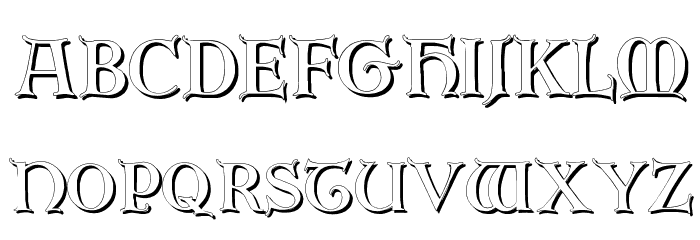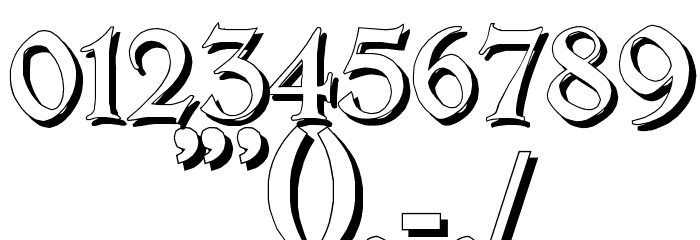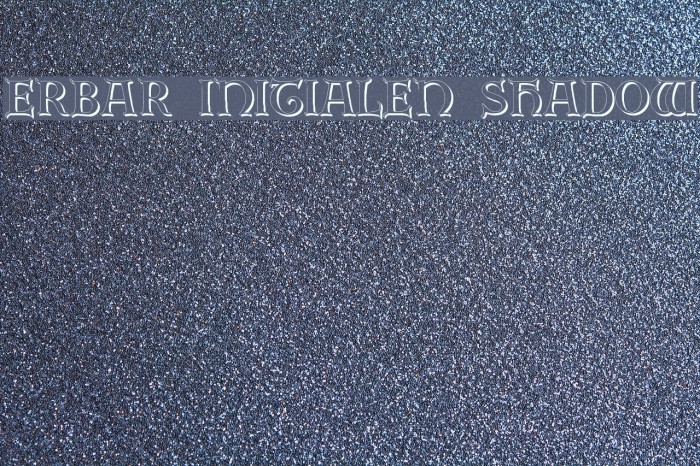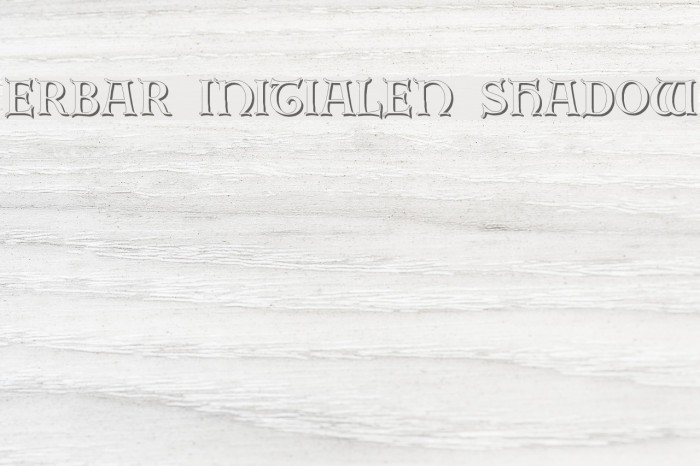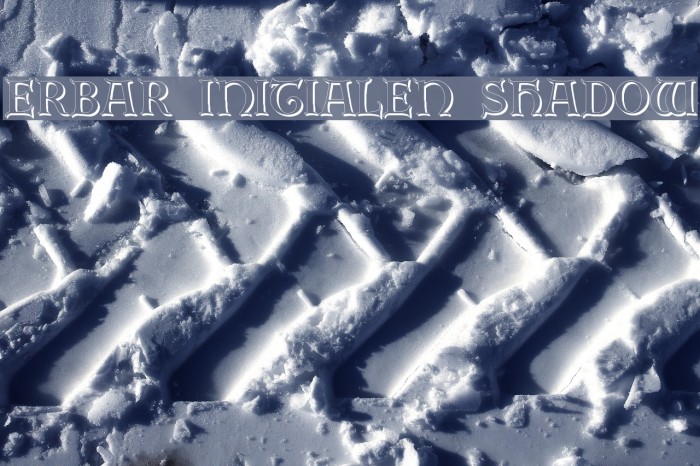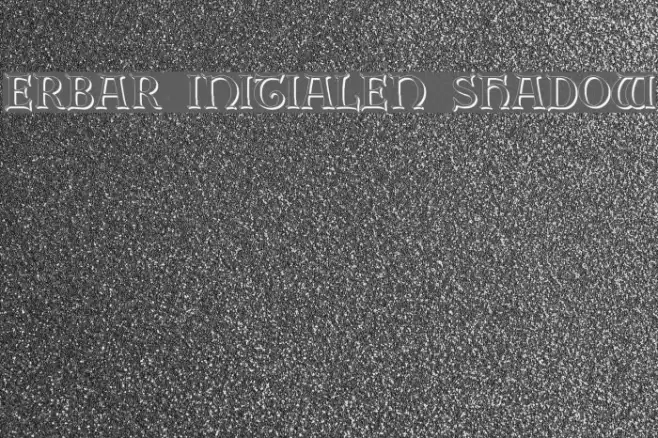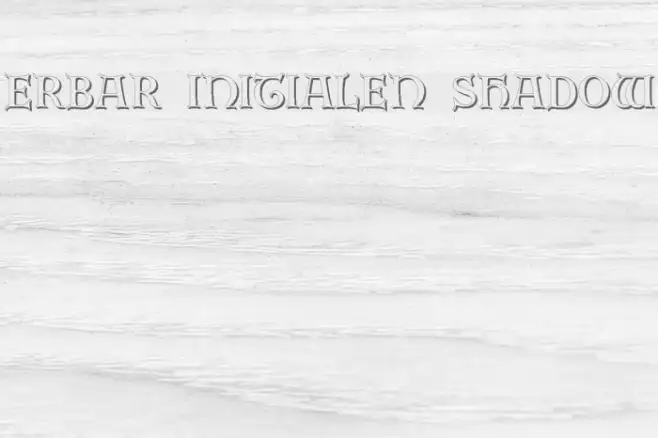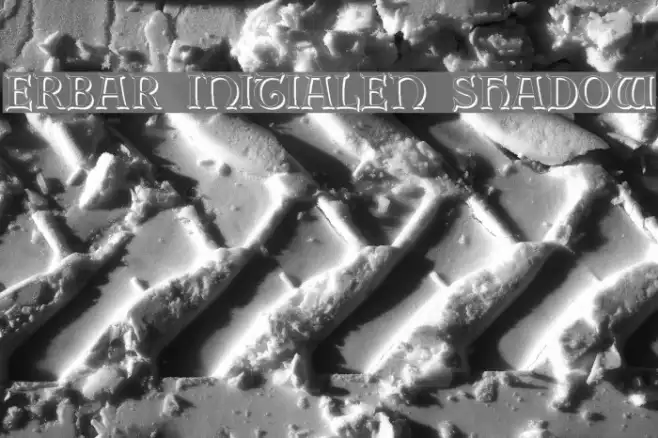
Erbar Initialen Shadow Font
This font features a bold and decorative style with a shadow effect that adds depth and dimension to each character. The uppercase letters are intricately designed with sharp serifs and a distinct shadow that gives a three-dimensional appearance. The numerals and special characters maintain this bold and shadowed style, making them stand out prominently. The overall aesthetic is reminiscent of vintage or classical typefaces, often used for dramatic and eye-catching displays. The font's unique design makes it suitable for projects that require a strong visual impact.
A bold, decorative font with a shadow effect, ideal for dramatic displays.
- Proposed Projects: Perfect for vintage-themed posters, book covers, logos, and any project requiring a striking visual impact.
- Overall Style: Vintage